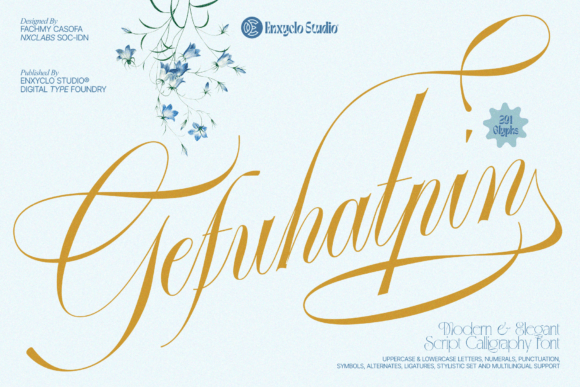
Introduction to Gefuhatpin Font
Introducing GEFUHATPIN – a luxurious script calligraphy font, poised perfectly on the crossroads of modernity and timeless elegance.
This show-stopping typeface embodies the quintessential spirit of luxury, brandishing its sophisticated beauty for brands longing for an unforgettable glamorous presence With its rhythmically refined strokes and gracefully flowing curves, GEFUHATPIN delicately transforms modern calligraphy into a bold statement of class and style.
Key Features of Gefuhatpin Font